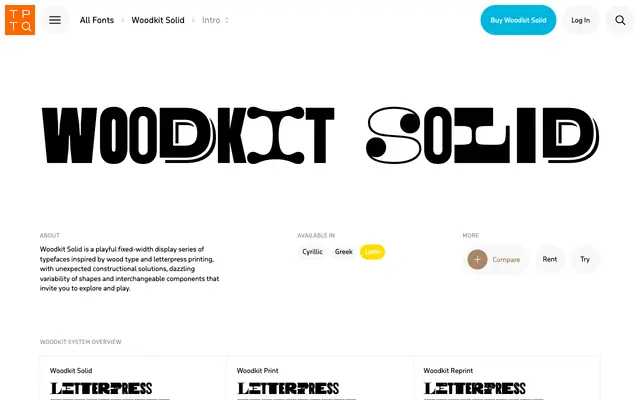
A modular letterpress-inspired display system from Typotheque, built from interlocking alphabets, blocks and ornaments that mimic historical wood type composition.
Part of the broader Woodkit system alongside Woodkit Print and Woodkit Reprint, Solid presents capitals and figures as components designed to be assembled in the manner of vintage wood type. The system is organised into named sub-sets covering two alphabet variants, blocks, ornaments and figures, each available separately. It is well suited to editorial, poster and identity work where a hand-printed, constructivist aesthetic is wanted without sacrificing typographic structure.
Woodkit Solid is a modular, letterpress-inspired display system built from interlocking components including alphabets, blocks, ornaments and figures, placing it firmly in the display category with a decorative, constructivist subcategory.